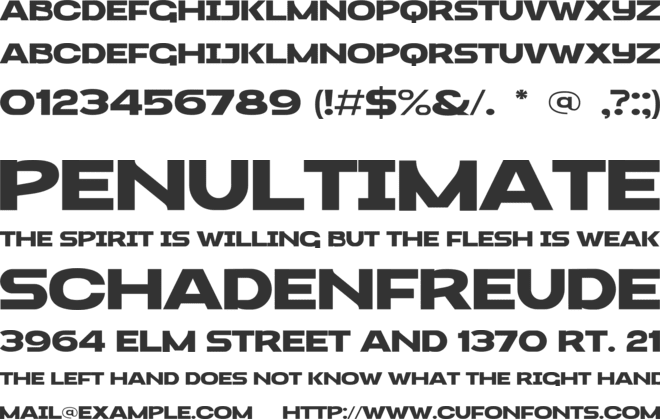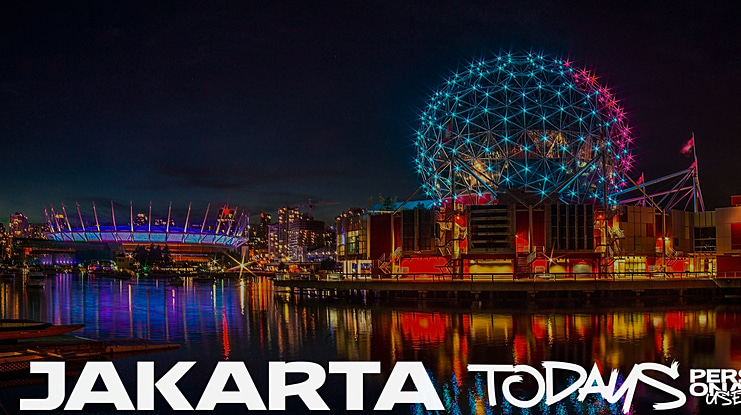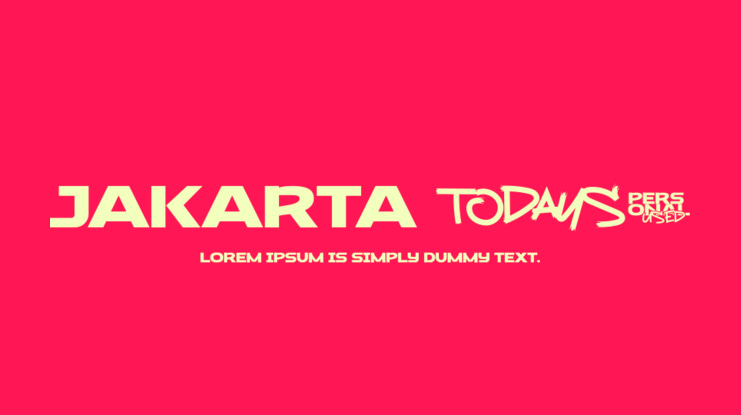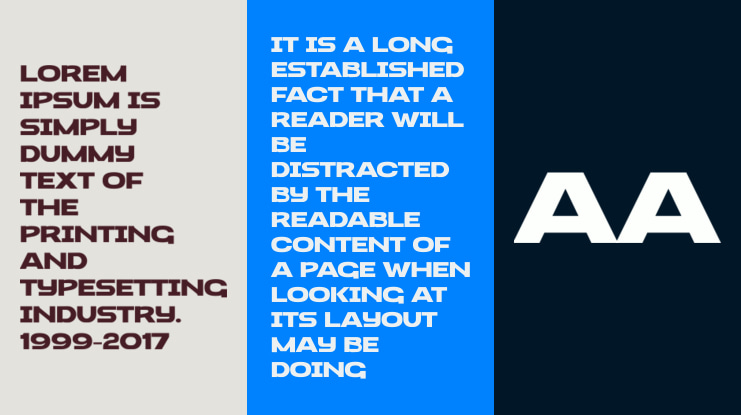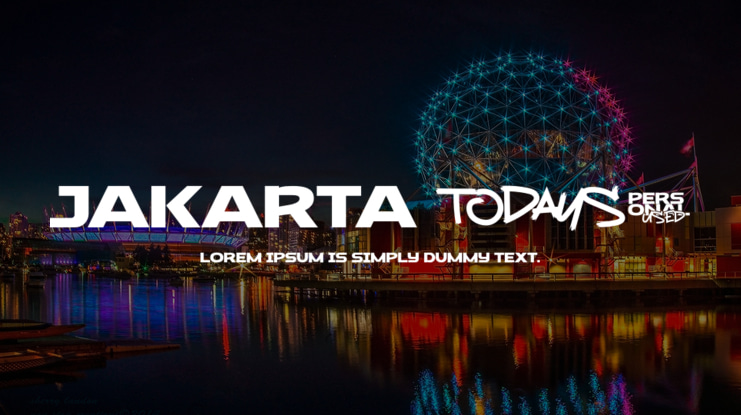
Jakarta Todays Font
Lettercorner Studio
Introducing Jakarta Todays typeface. A hand-made brush typeface inspired by 80s-90s music, retro, disco, grunge, and pop culture. uses for poster, logo, clothing, books, invitation, logo, etc.